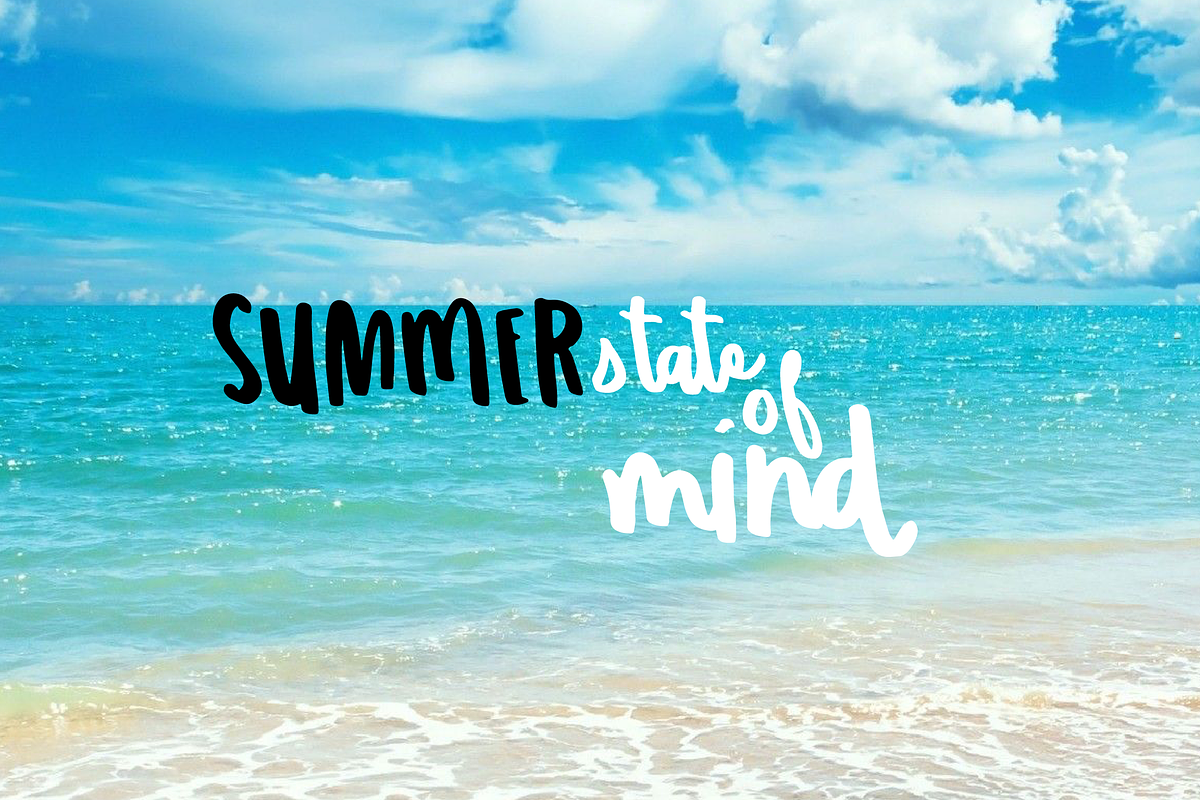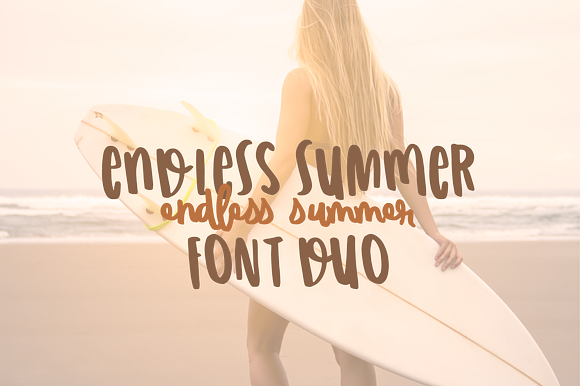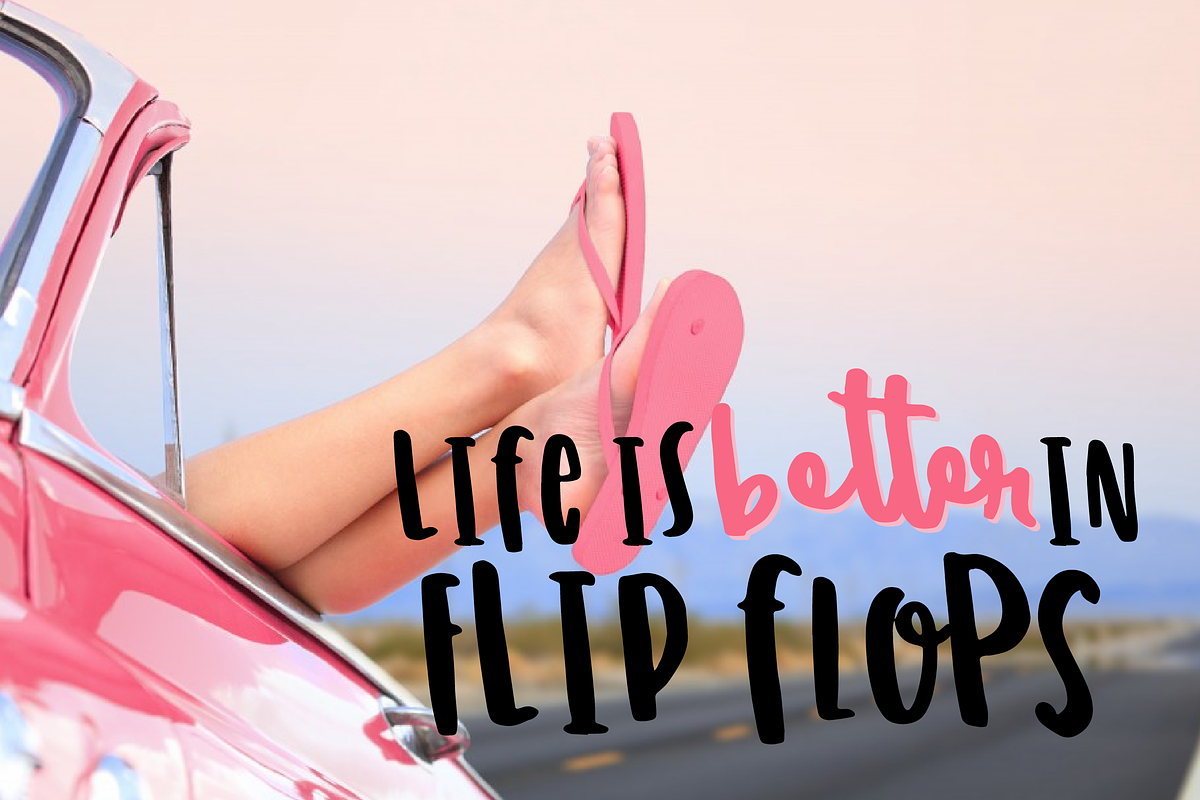
Endless Summer Font Duo
Meet the Endless Summer Font Duo! Cute and quirky and fun to design with!
- Endless Summer Print Regular
- EndlessSummer Script Regular
Endless Summer Font Duo by OnTheSpotStudio fits naturally into Branding, posters, packaging, typography.